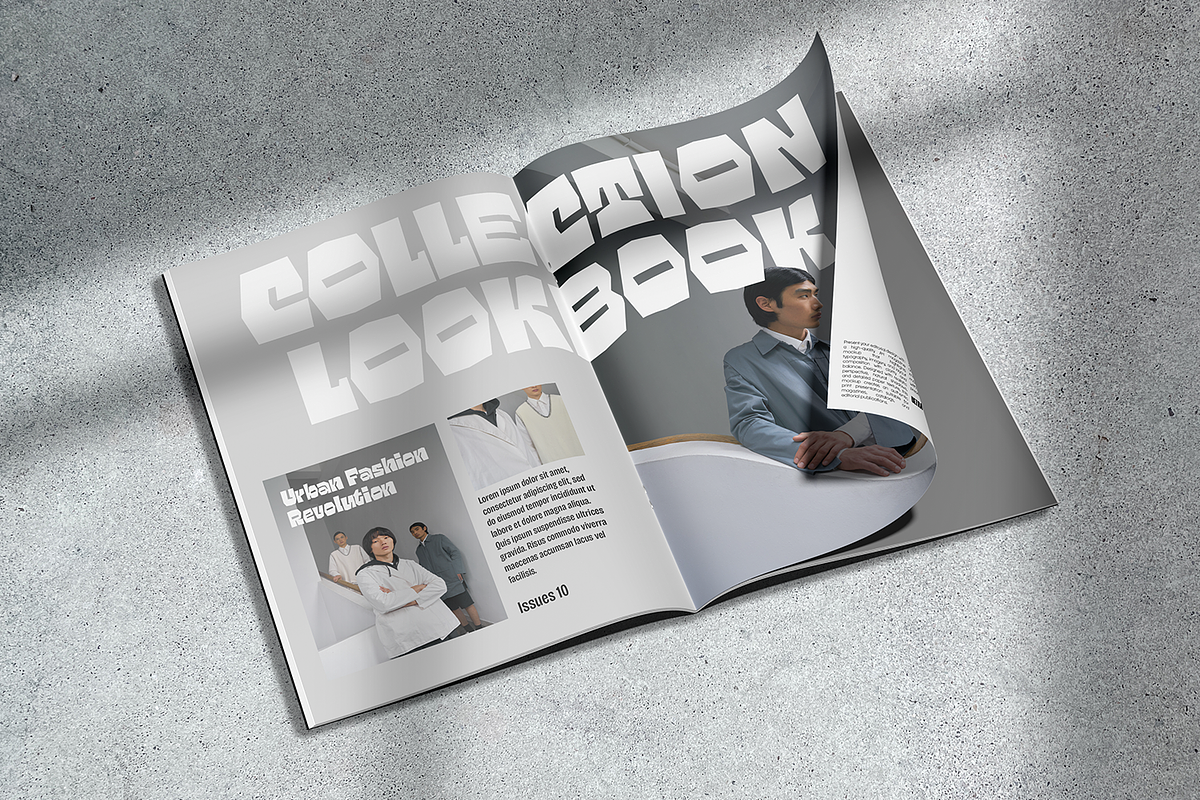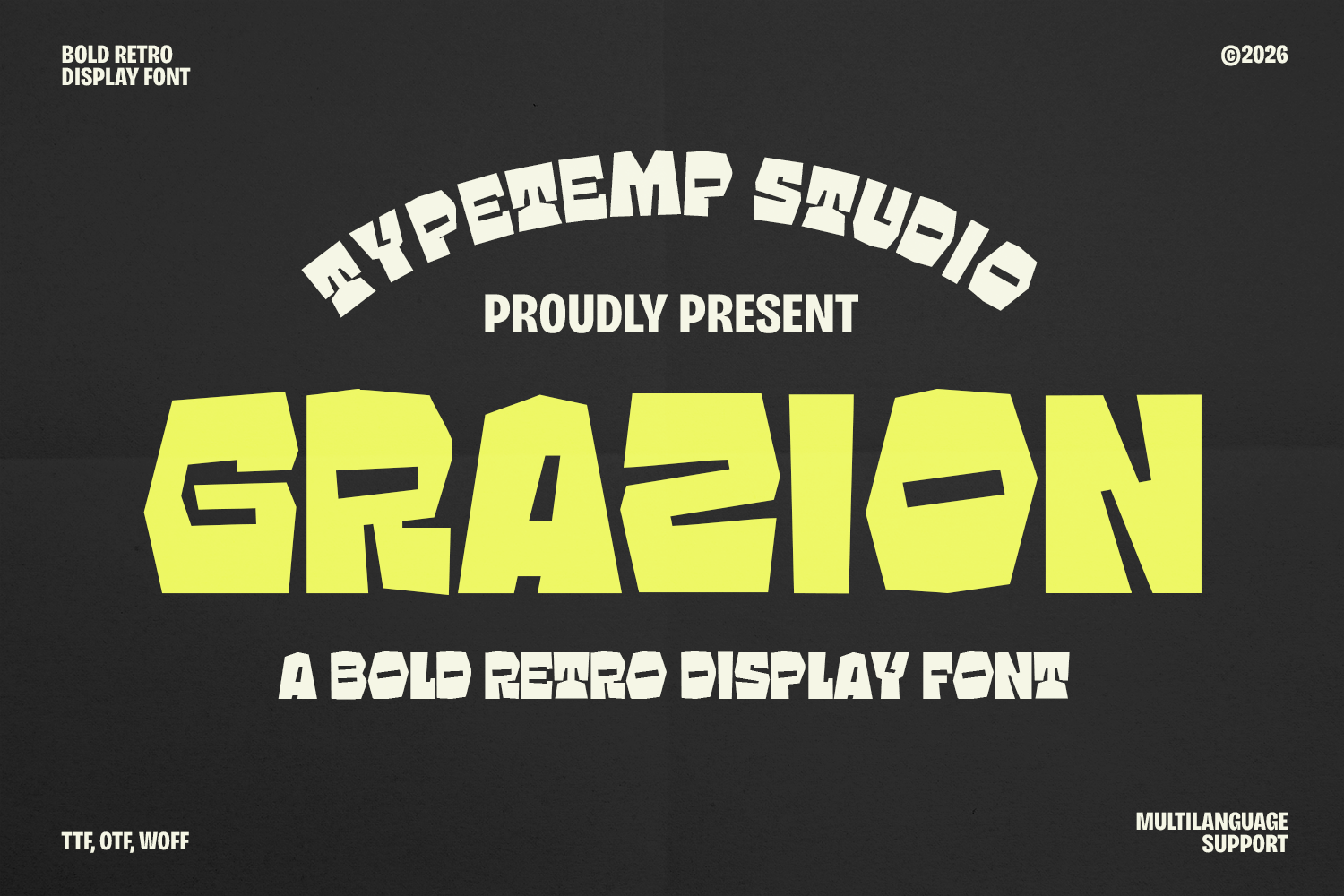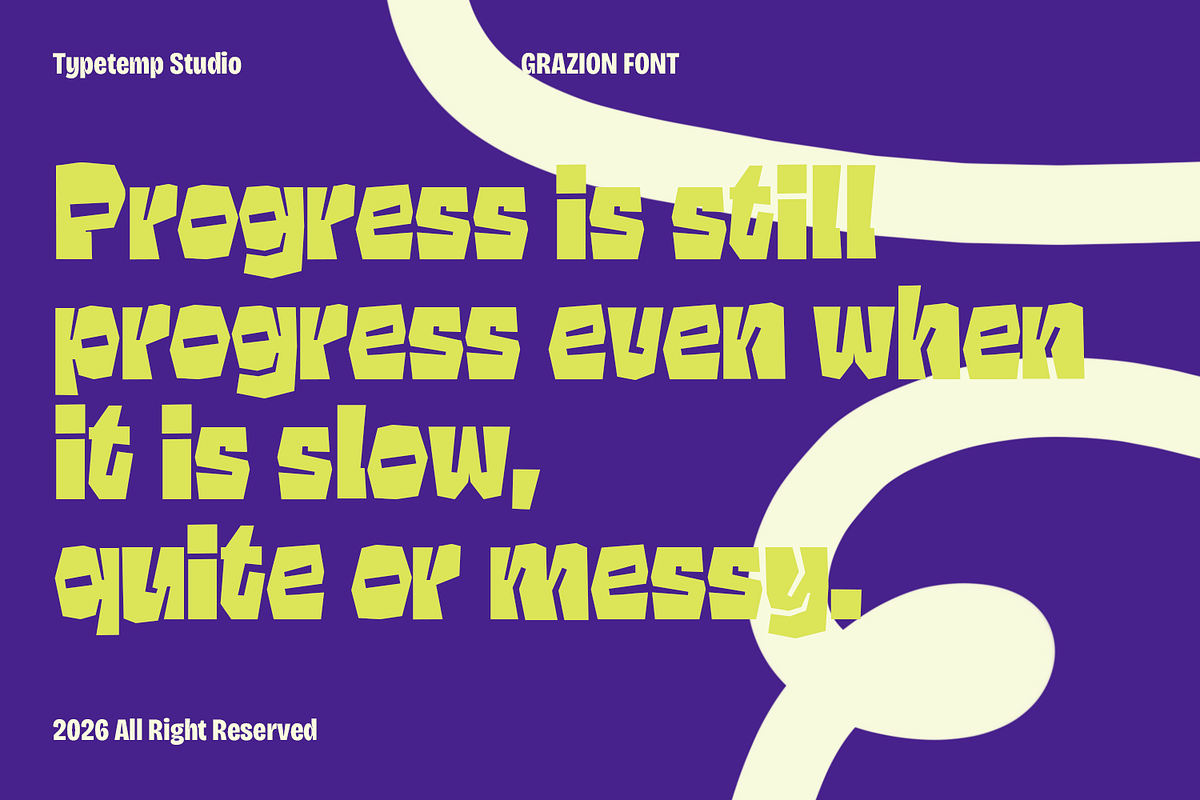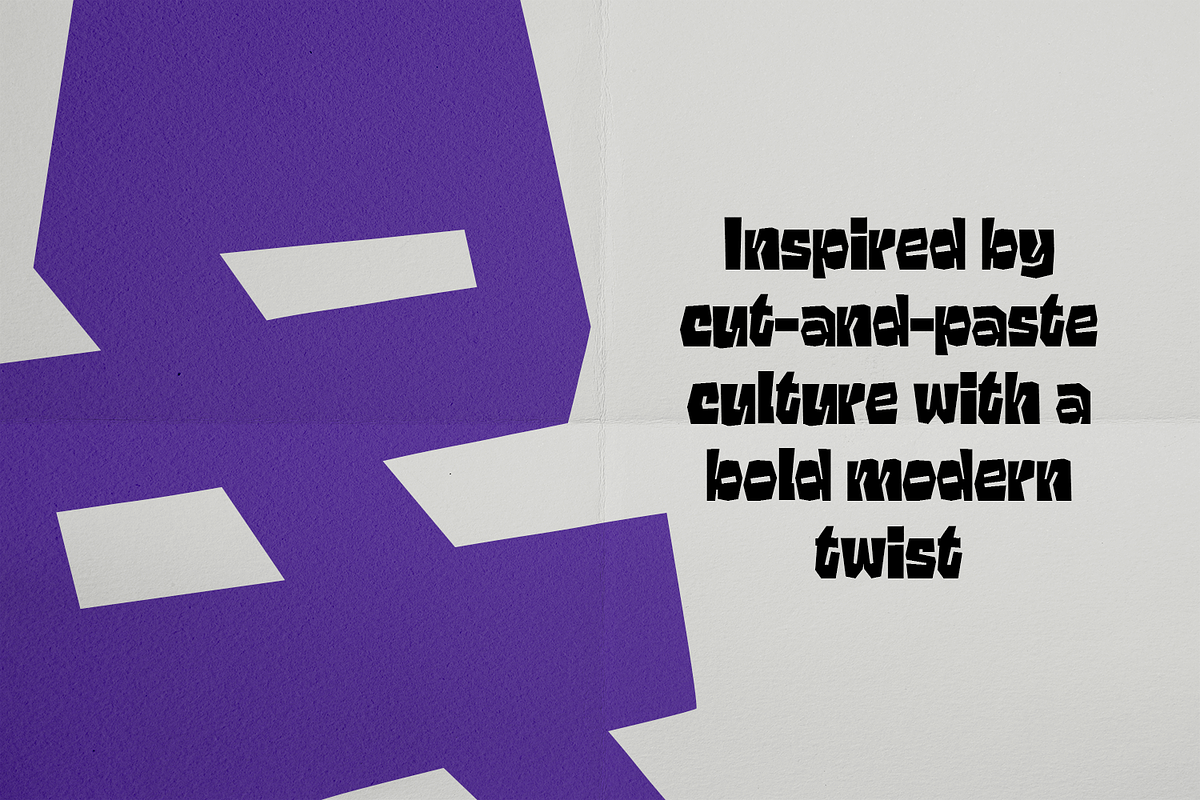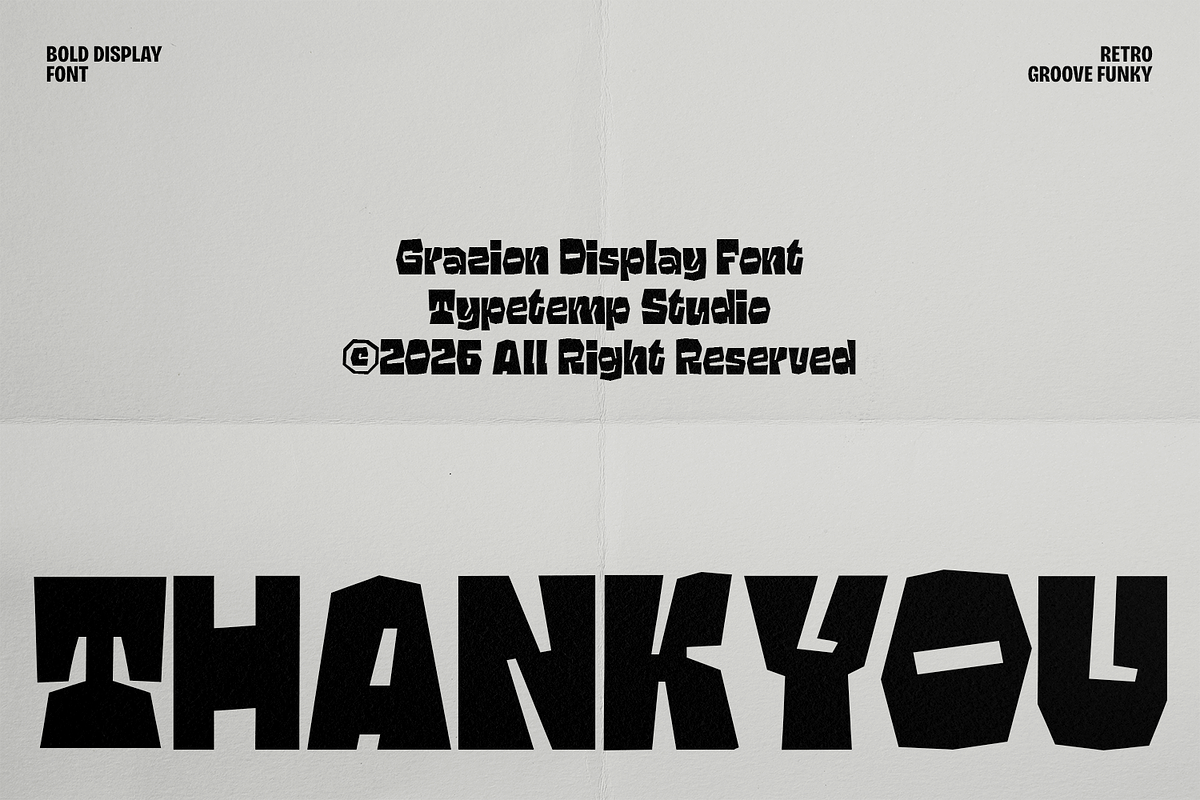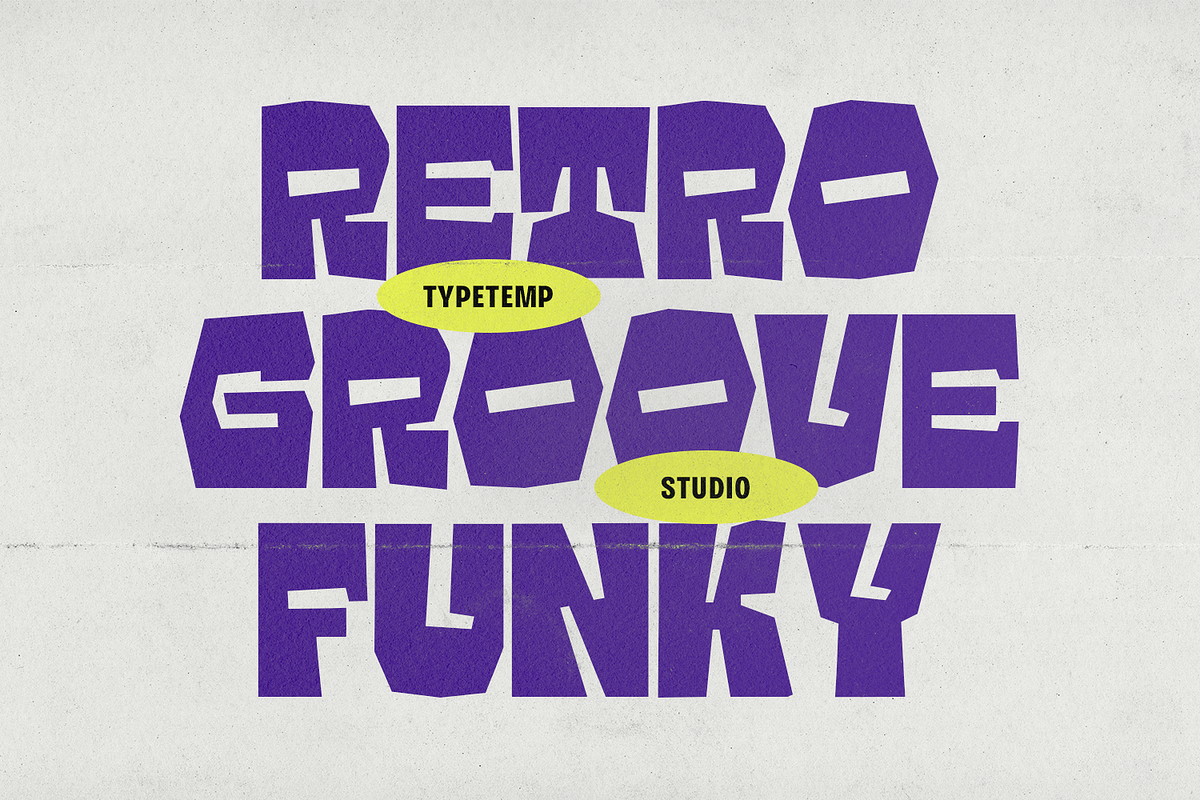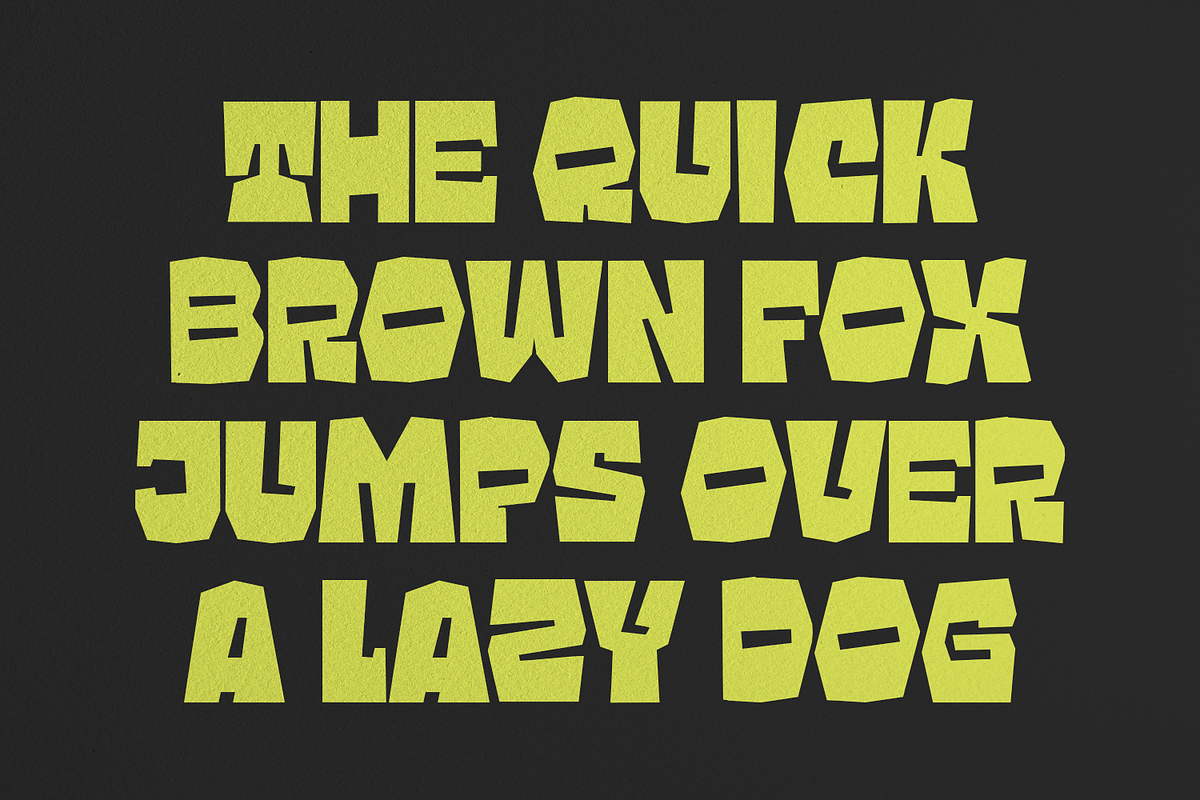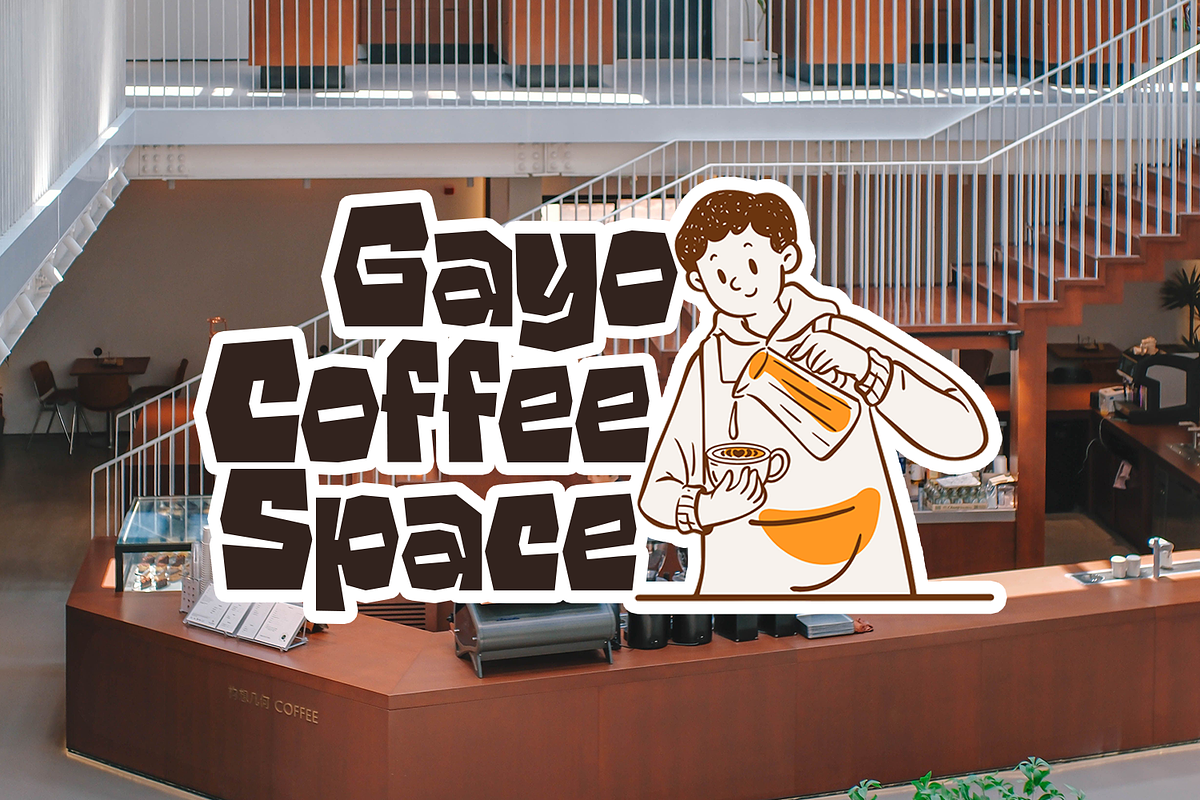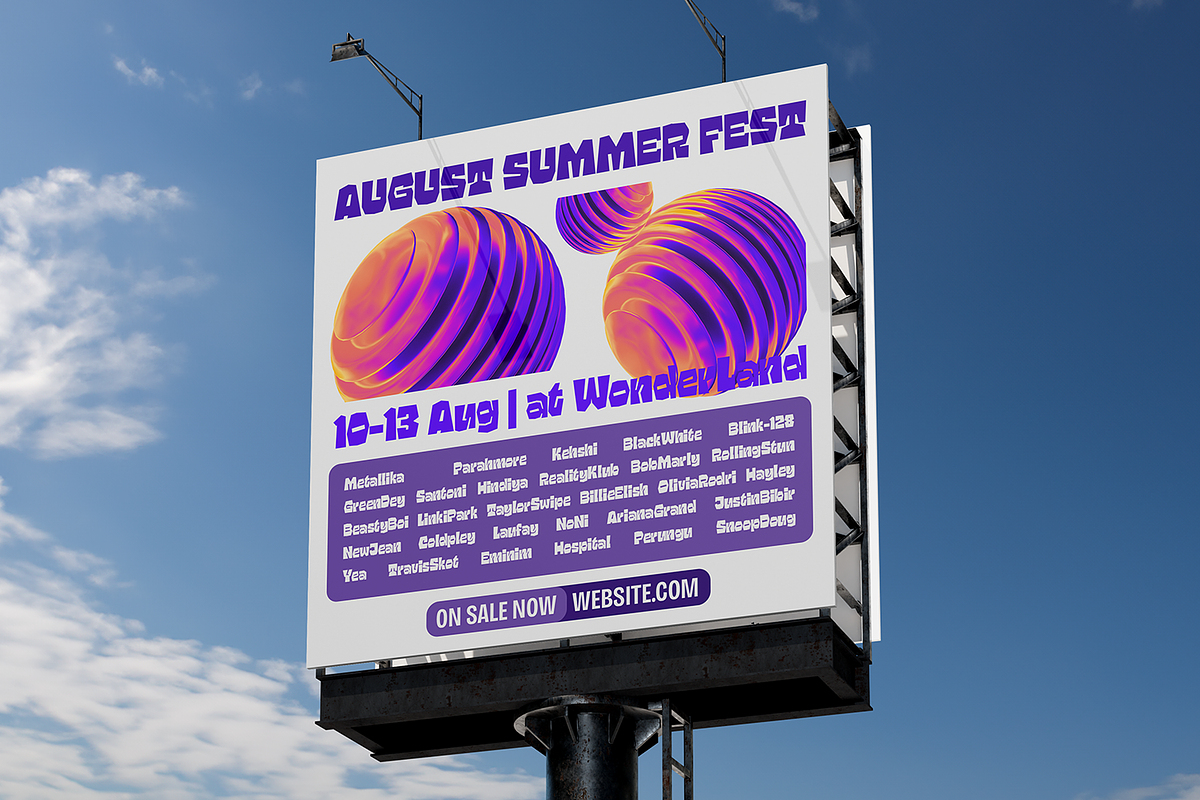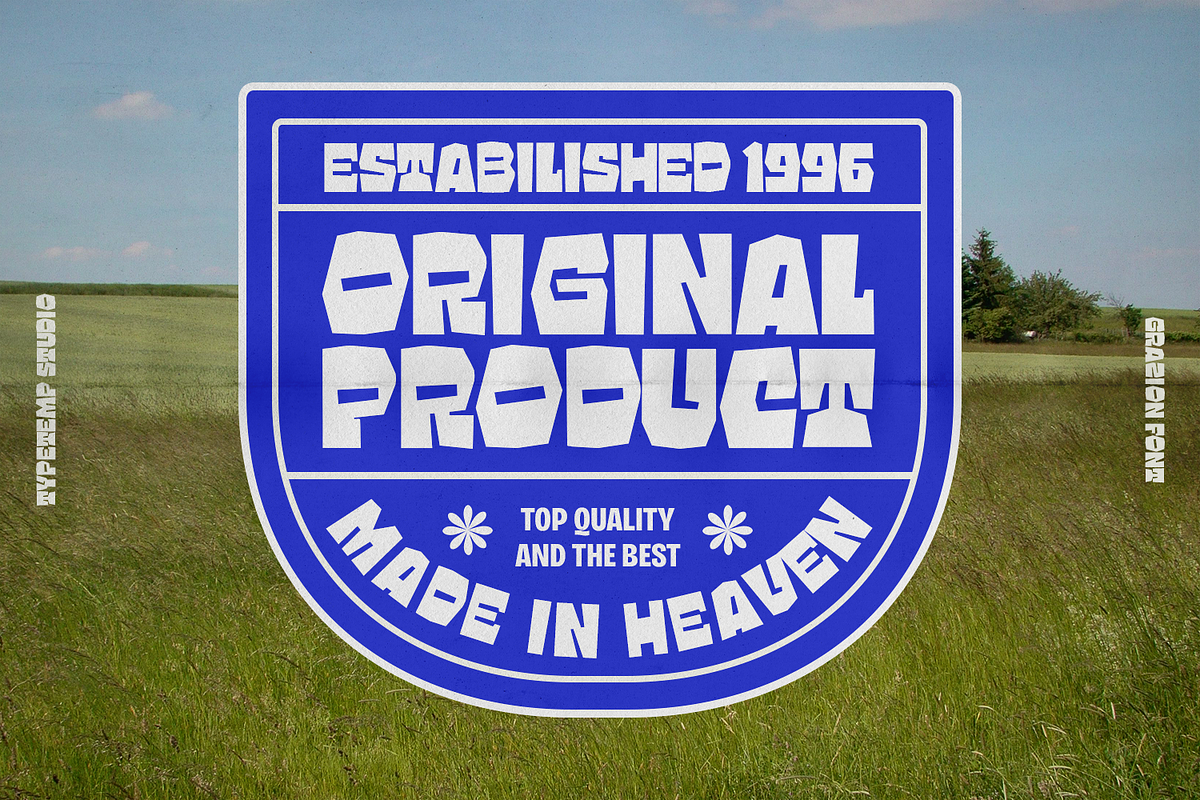
Grazion - Bold Retro Display Font
Grazion is a bold retro display font crafted to make a powerful statement. Featuring chunky geometric letterforms, sharp angular cuts, and an energetic vintage-inspired aesthetic, this typeface delivers instant visual impact while maintaining excellent readability. Its strong personality draws inspiration from retro posters, arcade graphics, classic packaging, and vintage advertising, making it a perfect choice for designers seeking a nostalgic yet contemporary look.
Whether you're creating logos, headlines, posters, branding, merchandise, packaging, social media graphics, or editorial layouts, Grazion brings a distinctive retro character that commands attention. The font's unique shapes and playful proportions make every word feel dynamic, memorable, and full of personality.
* Unique Letterforms